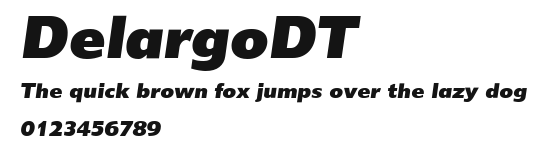
DelargoDT Preview
• Font Name: DelargoDT
• Full Font Name: Delargo DT Black Italic
• Manufacturer: DTP Types Limited
About DelargoDT.ttf
DelargoDT.ttf is a modern, elegant sans-serif font designed for ultimate readability and visual harmony. Perfect for branding, headlines, web design, and print materials.